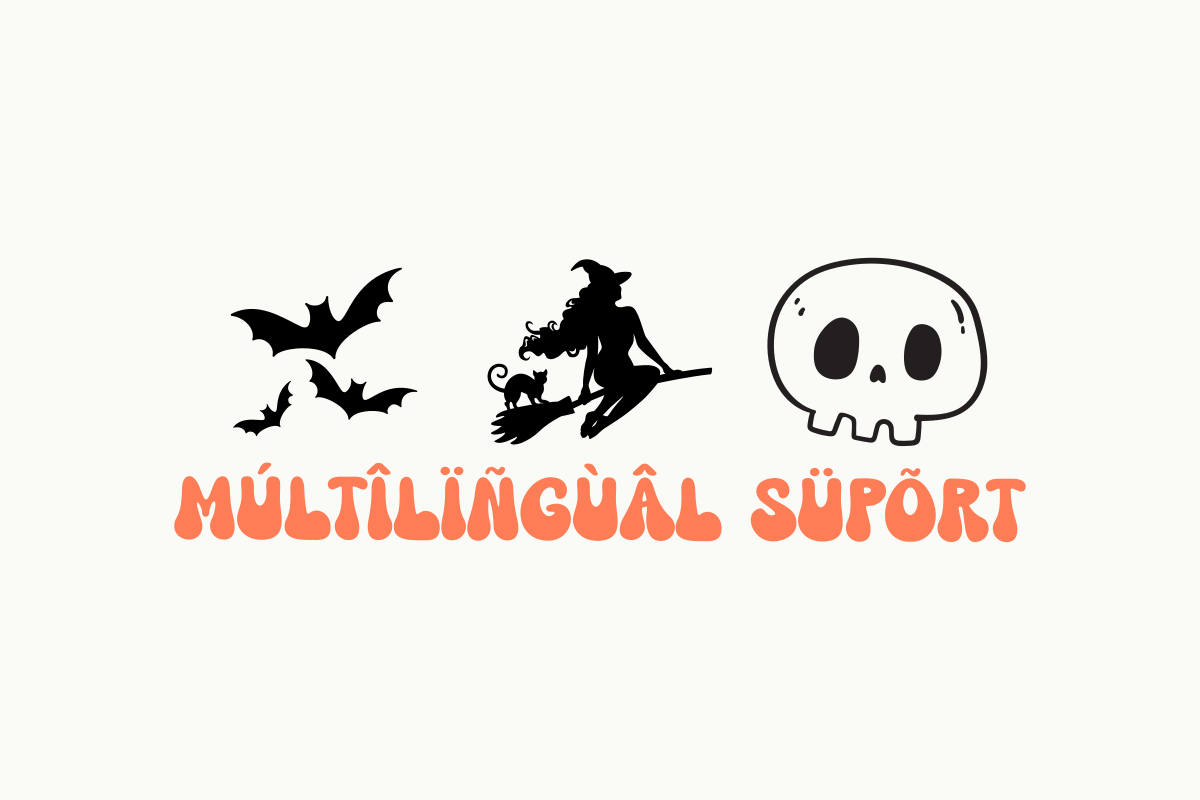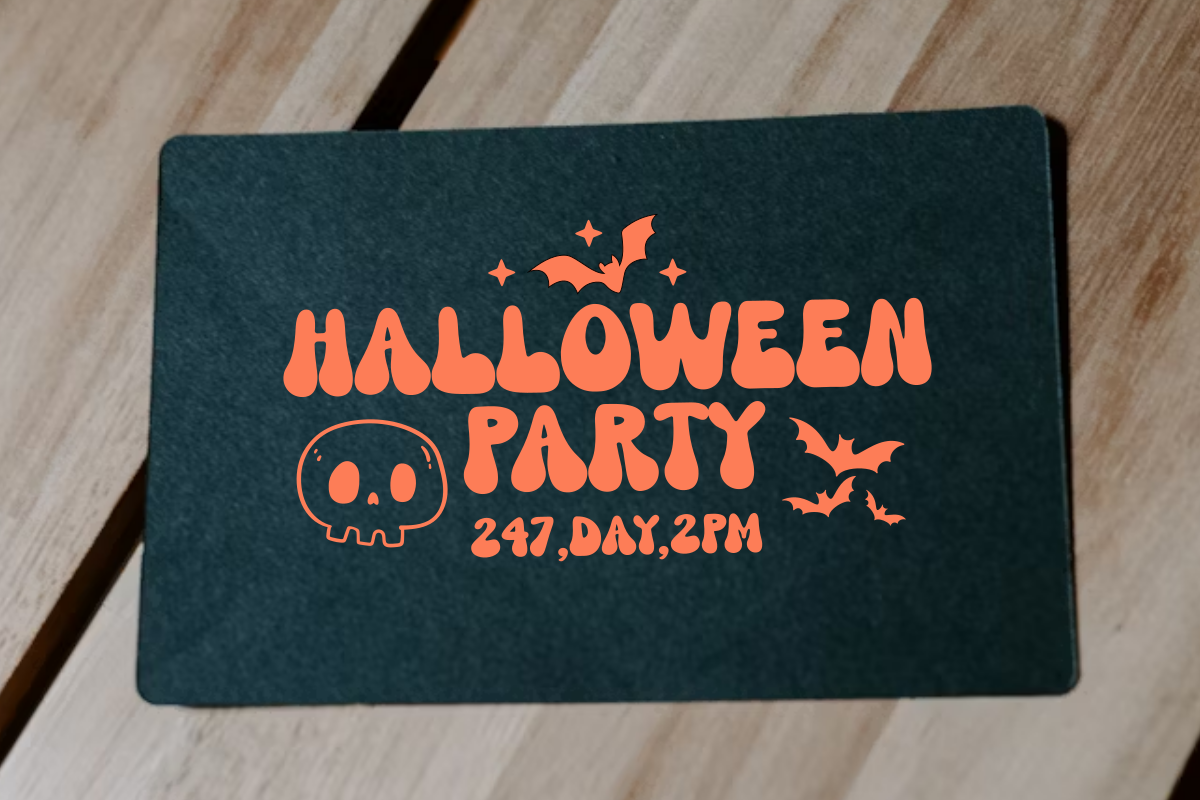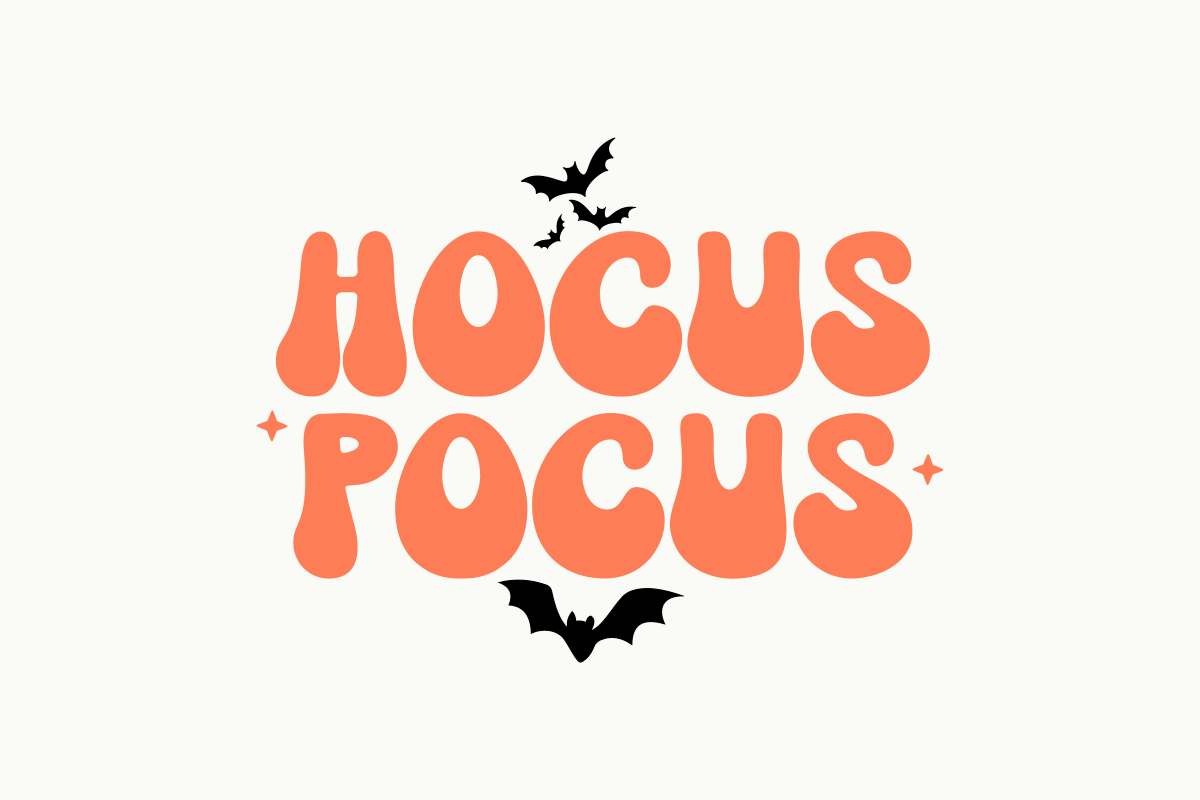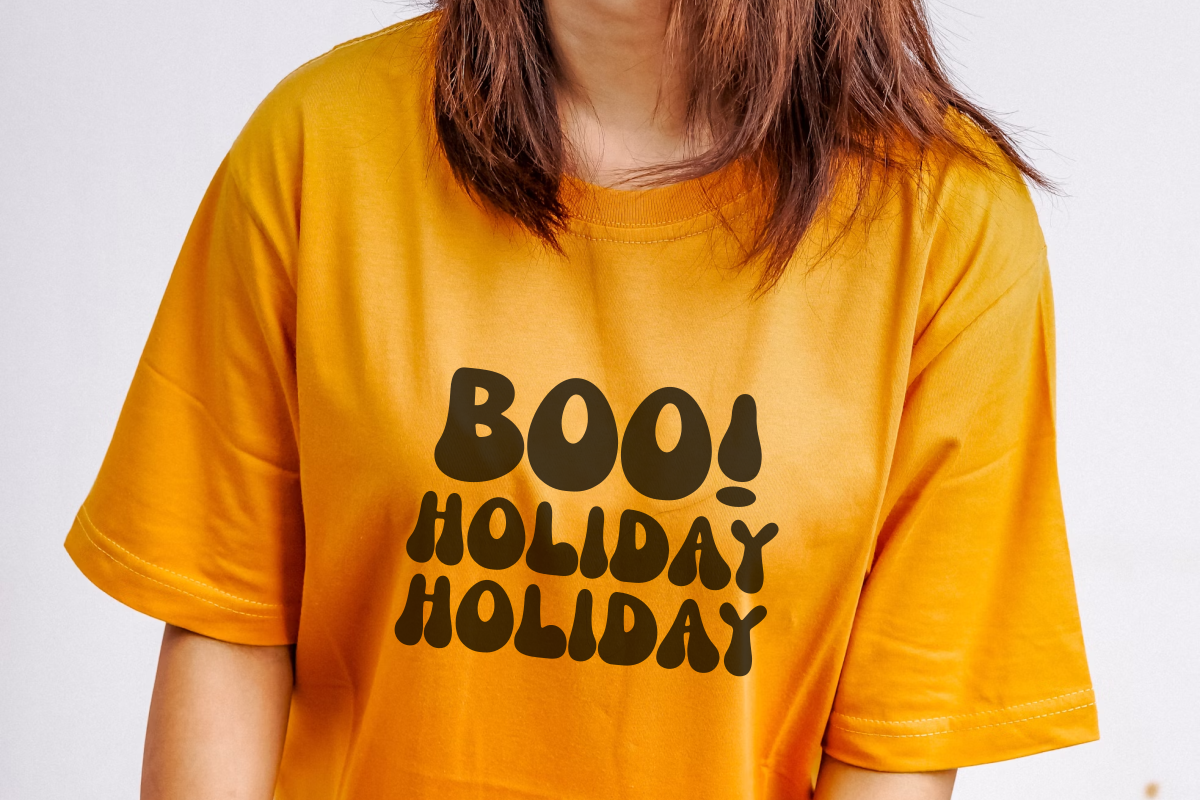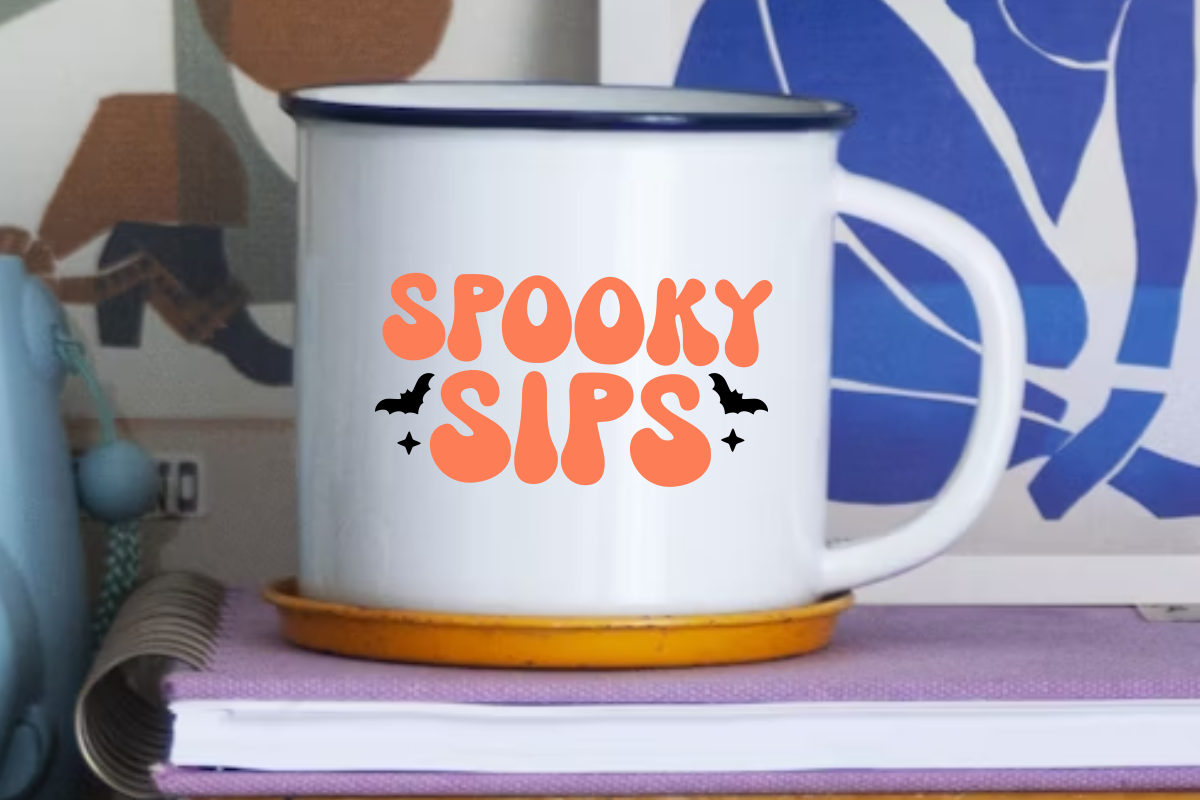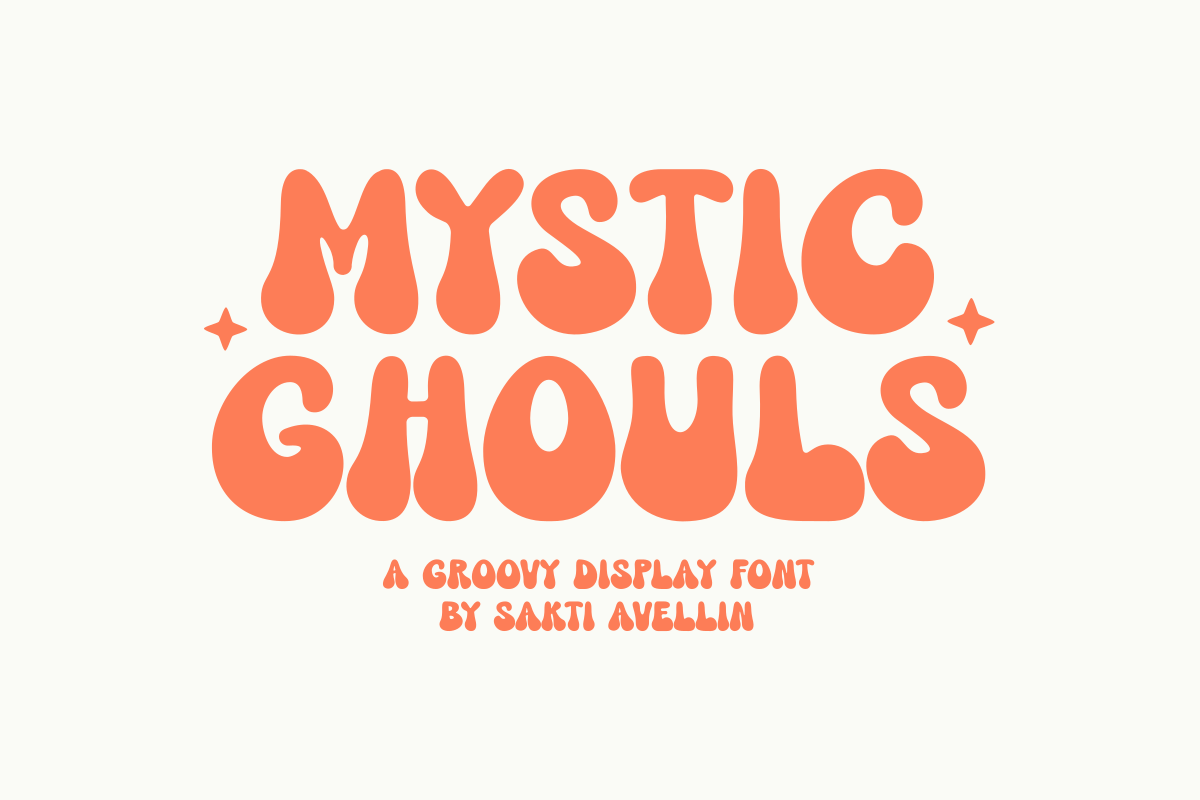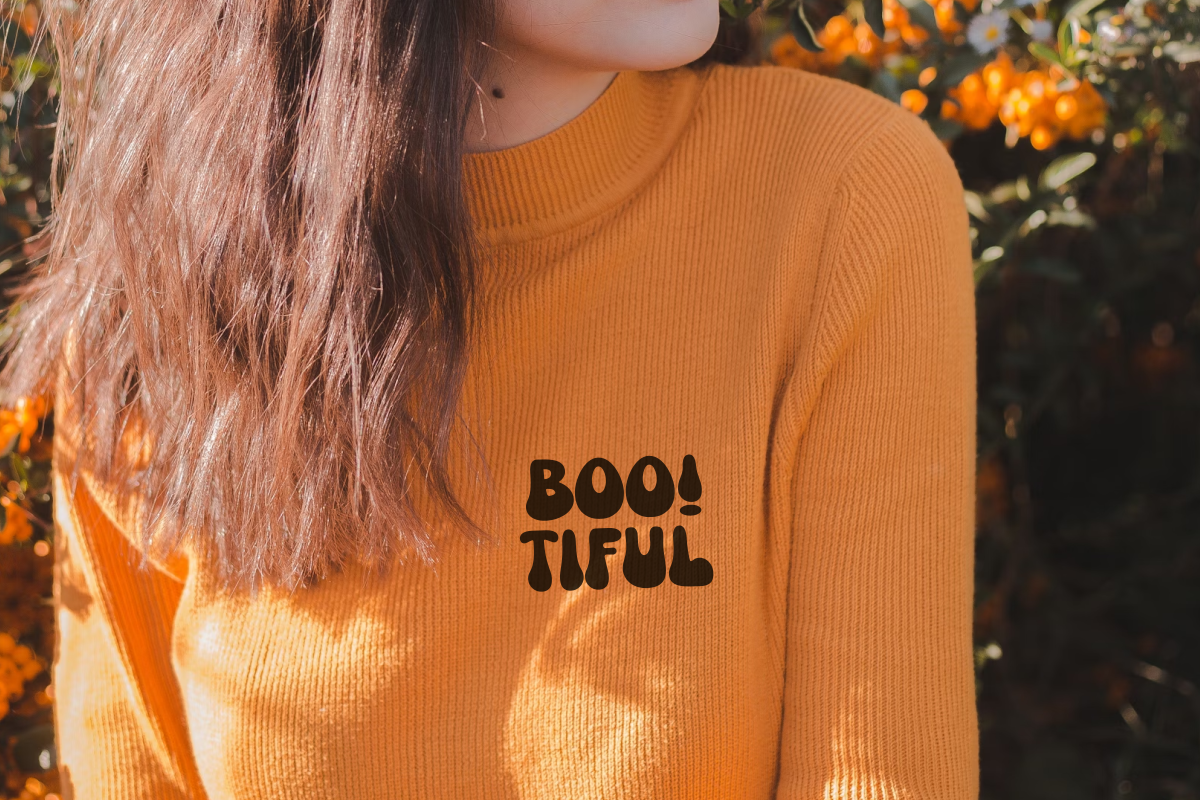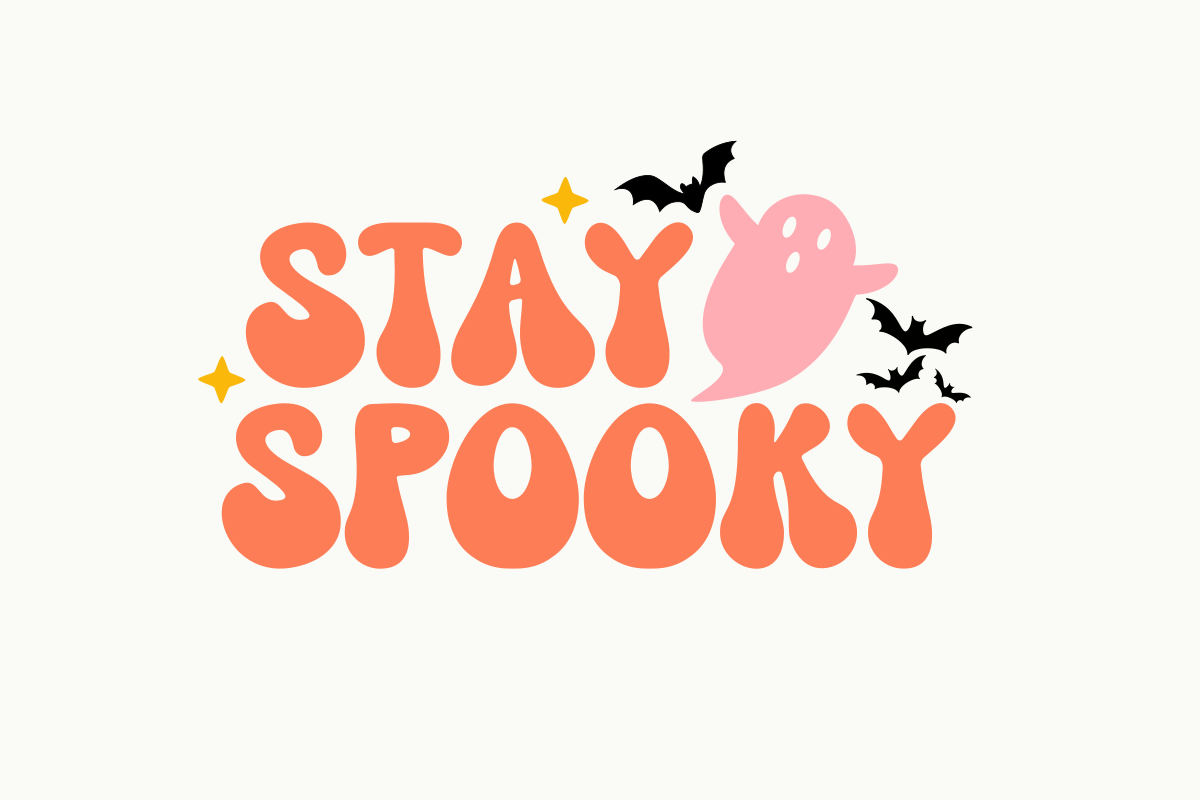
Mystic Ghouls - Groovy Display Font
Mystic Ghouls is an alluring and groovy display font that blends a playful, retro 70s aesthetic with a subtle spooky vibe. This bold chunky display typeface features smooth, fluid curves and a captivating look, making it essential for Halloween invitations, eerie seasonal branding, fun t-shirt designs, retro posters, and engaging social media graphics. Its distinctive, heavy style ensures it stands out powerfully in headlines and product packaging, appealing to a trendy audience that loves nostalgic funk and cute horror. Summon some creative spirits with this truly mesmerizing and retro psychedelic font!